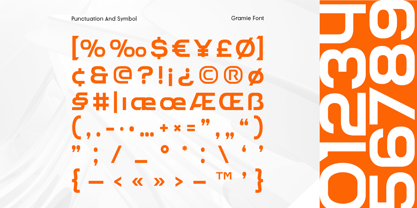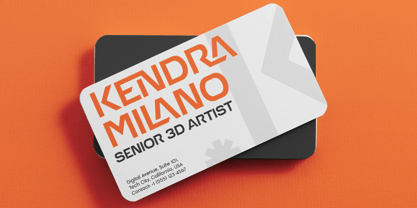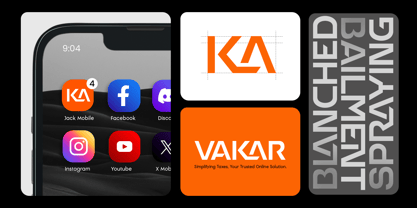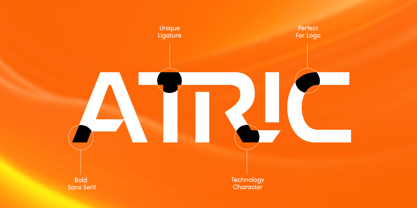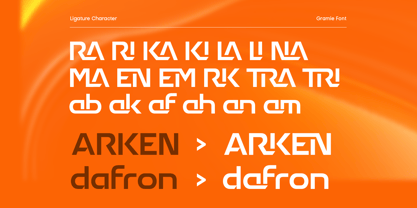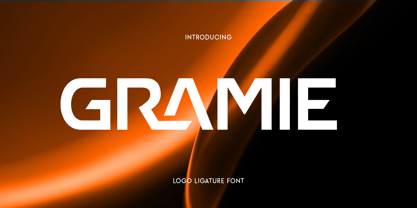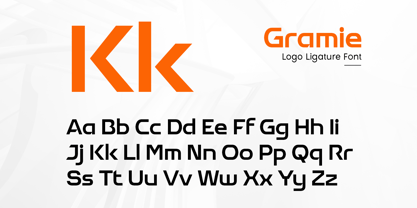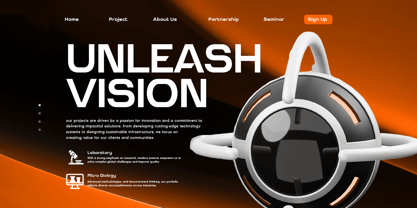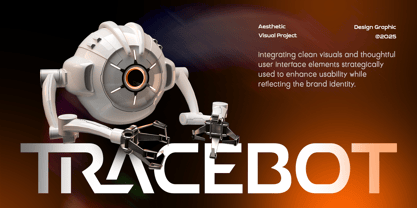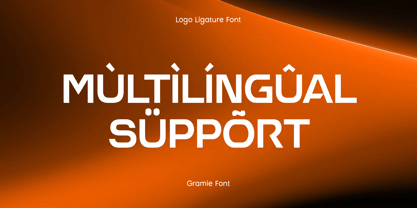
Gramie
Die Schriftfamilie Gramie wurde von Zamroni Hamzah entworfen und von Sensatype Studio veröffentlicht. Gramie enthält 4 Stile und Familienpaketoptionen. Mehr über diese Familie
Designed for tech startups, futuristic logos, gaming brands, and cyberpunk visuals, GRAMIE features seamless ligatures and dynamic letterforms, creating a bold and modern typography experience. Whether you're working on a high-tech branding project, an esports logo, or a digital interface, this font ensures a clean, futuristic, and high-impact look.
Step into the next generation of design with GRAMIE, a font that blends technology, style, and precision into one.
GRAMIE - Techno Ligature Font Features:
• Ready with 4 Styles: Regular, Rounded, and Italic in Between
• Futuristic ligatures for a sleek, connected look
• Perfect for tech branding, gaming, and cyber aesthetics
• Punctuation, numbers, and symbols included
• Uppercase and lowercase letters
• OpenType features for creative flexibility
Multilingual support for:
Afrikaans, Albanian, Basque, Breton, Catalan, Croatian, Czech, Danish, Dutch, English, Estonian, Finnish, French, Galician, German, Hungarian, Icelandic, Indonesian, Irish, Italian, Latvian, Lithuanian, Luxembourgish, Maltese, Norwegian, Polish, Portuguese, Romanian, Slovak, Slovenian, Spanish, Swedish, Turkish, Welsh, and more.
Create futuristic and high-tech designs with GRAMIE—the perfect techno ligature font for next-gen branding.